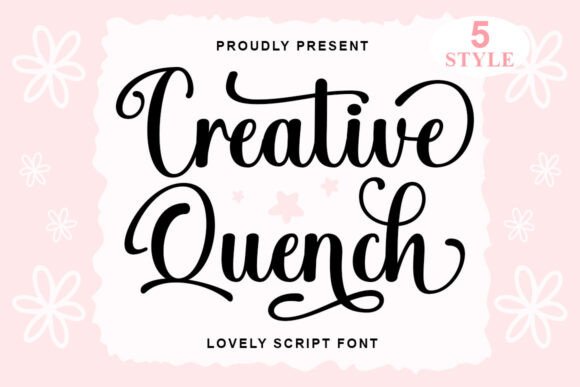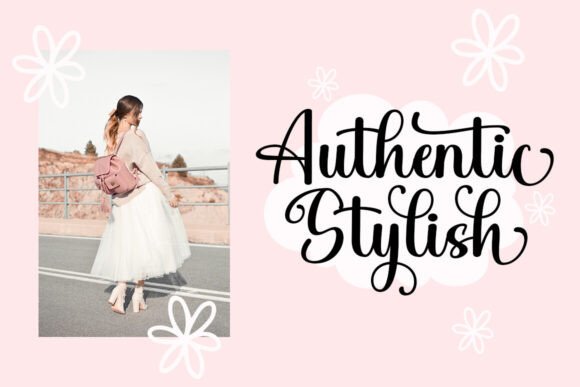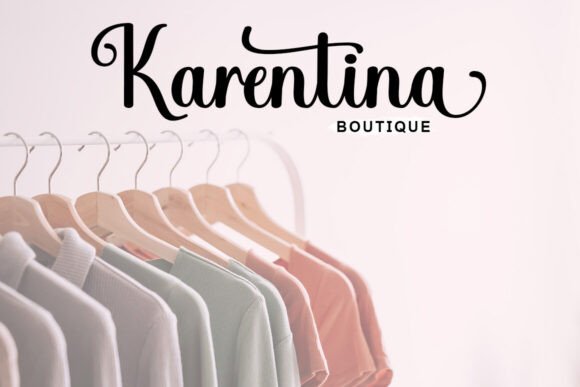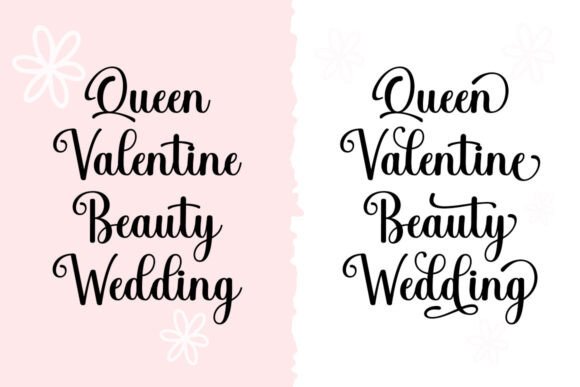
Creative Quench Font: A Feminine Script for Elegant Wedding Design
About the Creative Quench Font
Get ready to be inspired by Creative Quench Font, a fresh and dynamic typeface for modern creators. Creative Quench Script is a new modern script font with baseline. Trendy and feminine style. Creative Quench looks lovely on wedding invitations, thank you cards, quotes, greeting cards, logos, business cards and more. Perfect for using in ink or watercolour. Including initial and terminal letters, alternates and multiple language support.
Its feminine and trendy style makes it ideal for branding projects focused on beauty, fashion, or lifestyle products, particularly those targeting a female demographic. Use it effectively for headlines, short text blocks on packaging, or as a signature element in logos. However, avoid using Creative Quench for body text or lengthy paragraphs; its script nature compromises readability in extended use.
Pair Creative Quench with a clean sans-serif like Montserrat for a modern contrast, or a classic serif such as Garamond for a touch of timeless elegance. For a more playful feel, consider pairing it with a geometric sans-serif such as Futura. These pairings provide visual balance and ensure legibility.
The overall personality of Creative Quench is undeniably feminine, sophisticated, and approachable. Its delicate curves and graceful forms create a soft yet stylish aesthetic.
Creative Quench Font Usage Examples
Creative Quench Font Example